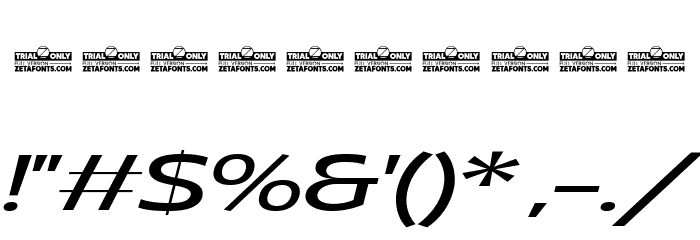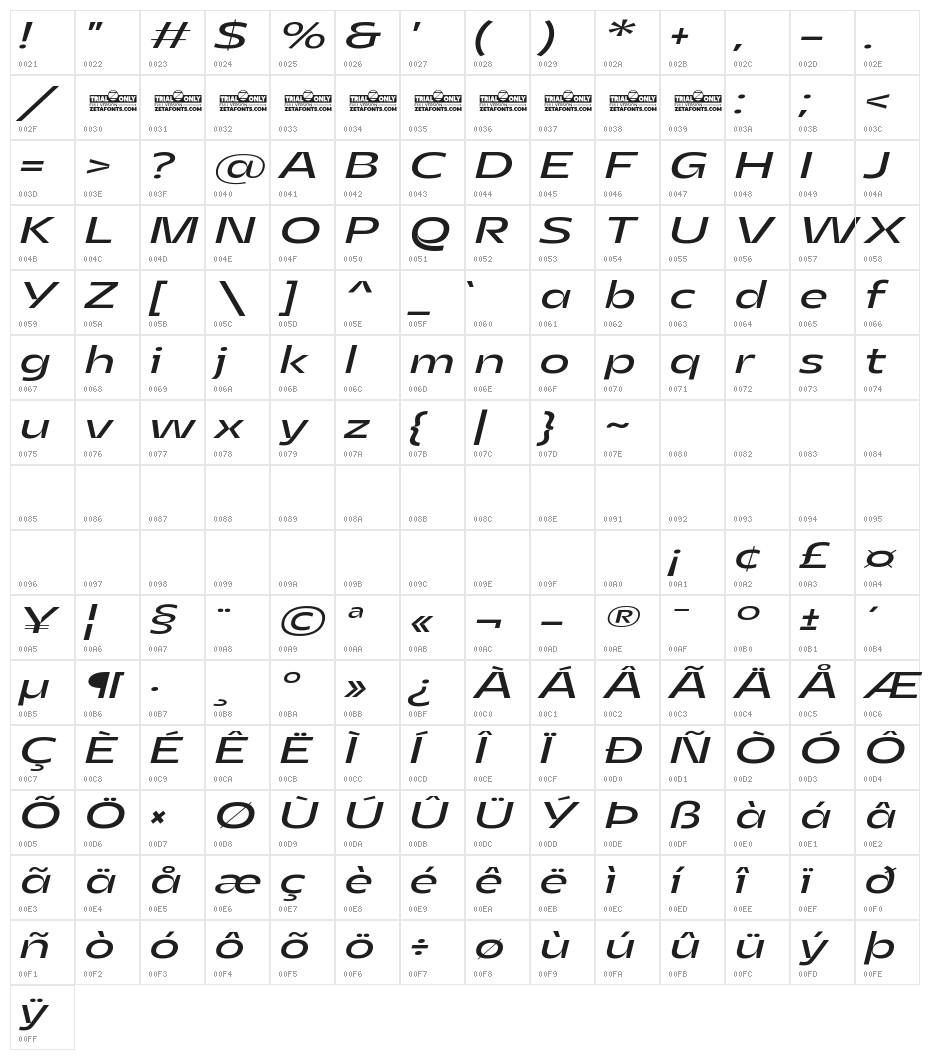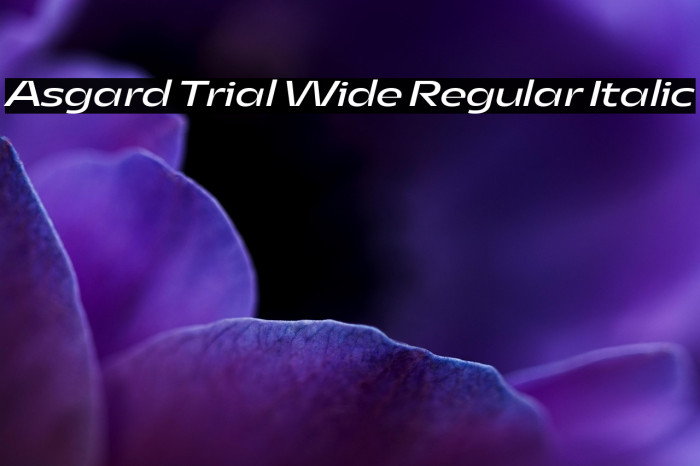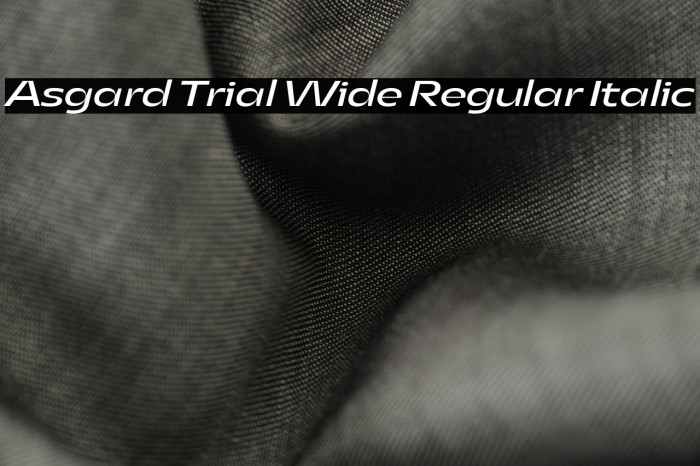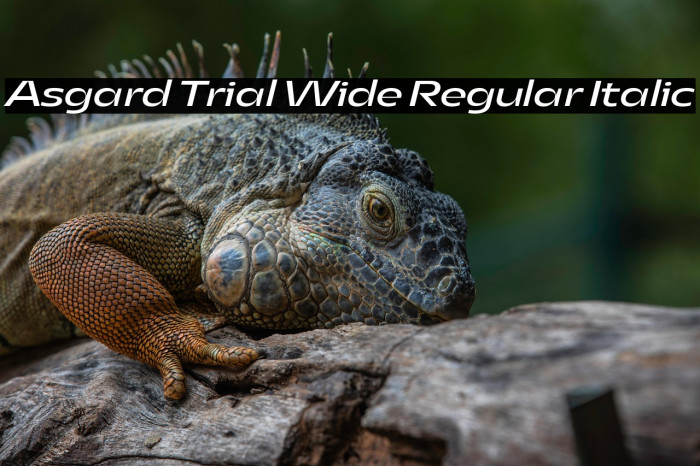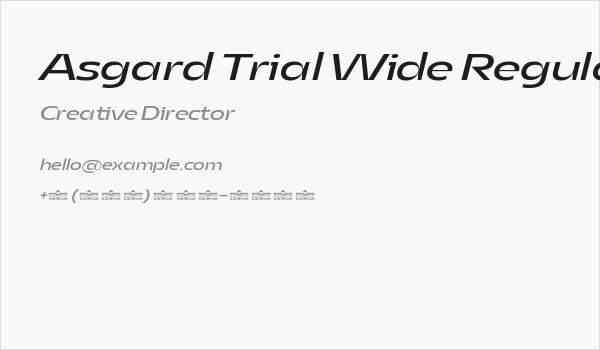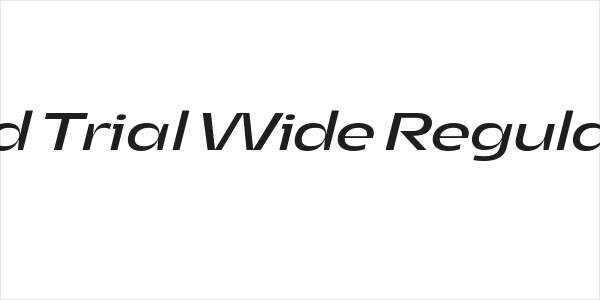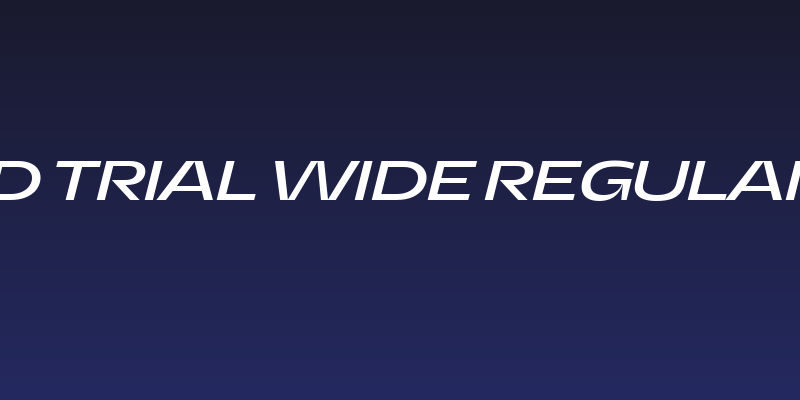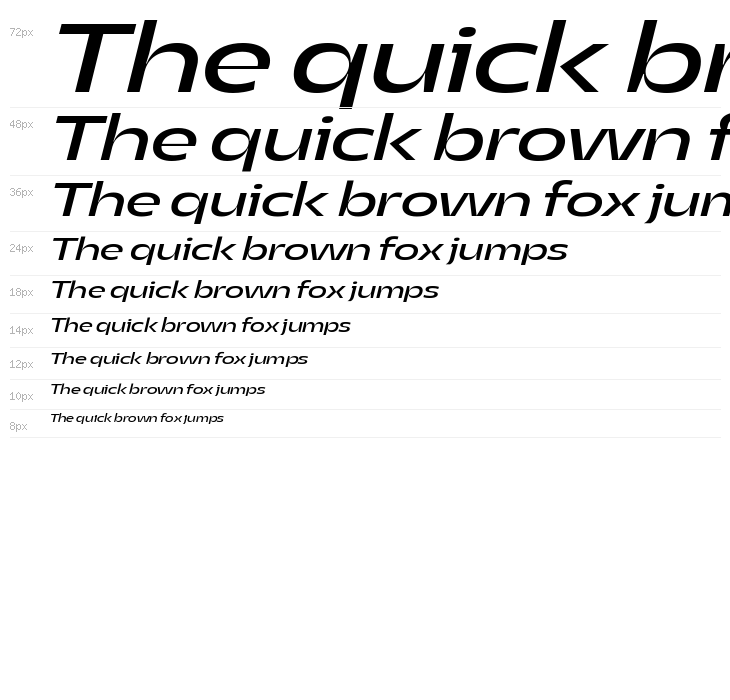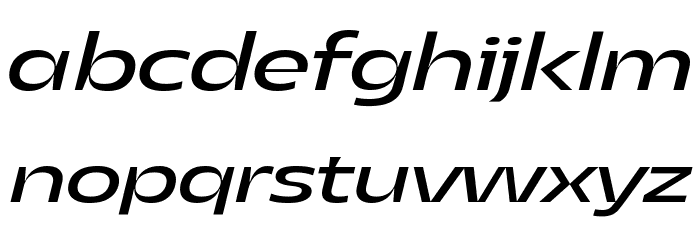
Asgard Trial Wide Regular Italic Font
Asgard Trial Wide Regular Italic Description
This typeface exhibits a sleek and modern aesthetic with a wide stance and italicized form. The characters are elongated, giving a sense of motion and dynamism. The uppercase and lowercase letters maintain a consistent style, with smooth curves and sharp angles that enhance readability. The numerals and special characters complement the alphabetic characters, maintaining the same stylistic features. This font is ideal for creating a contemporary and professional look, suitable for various digital and print applications.